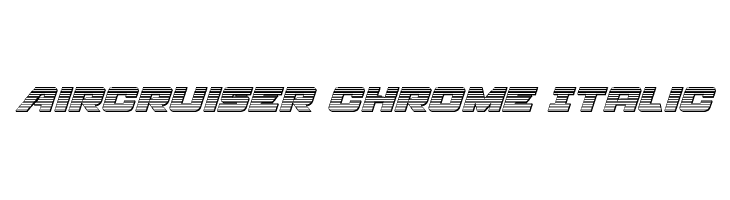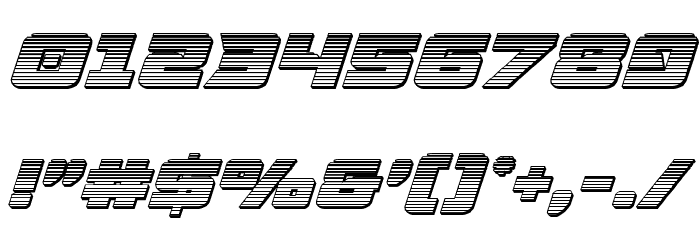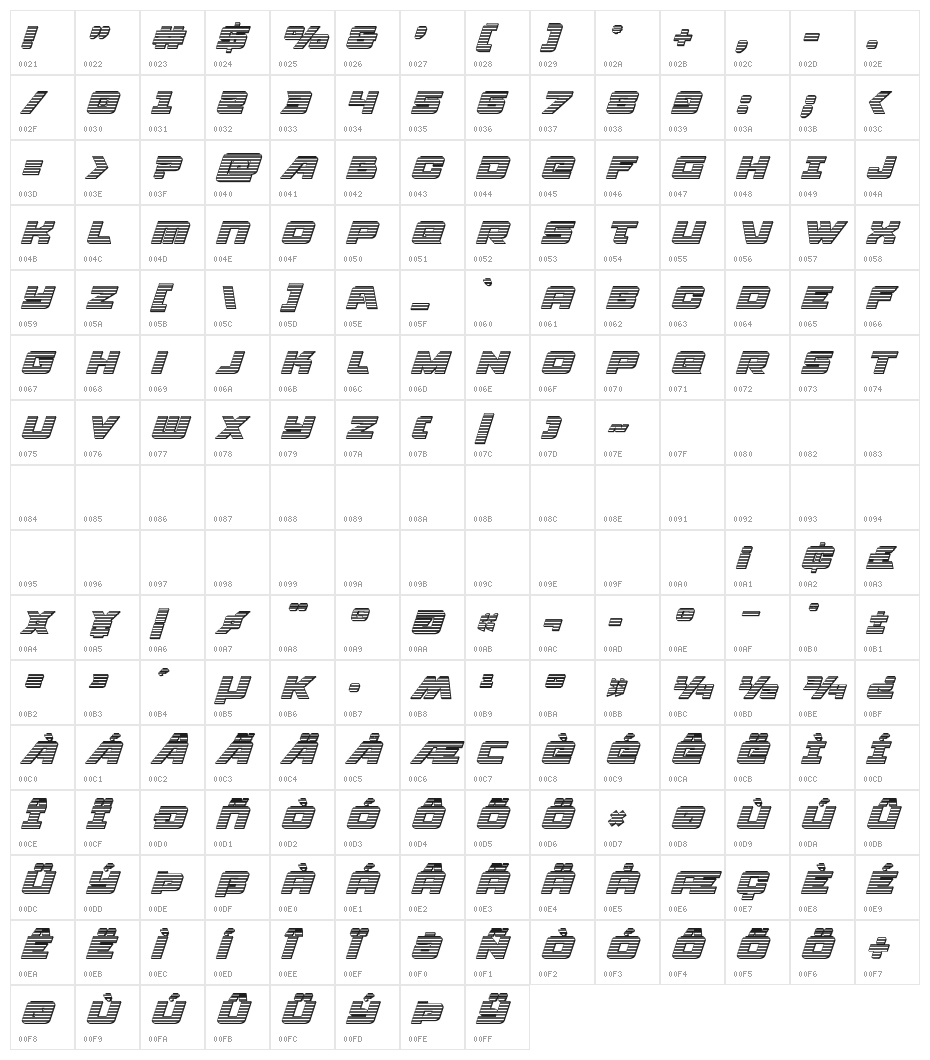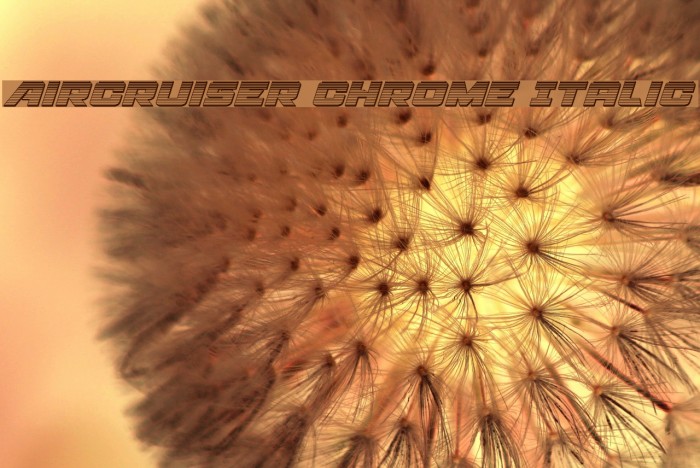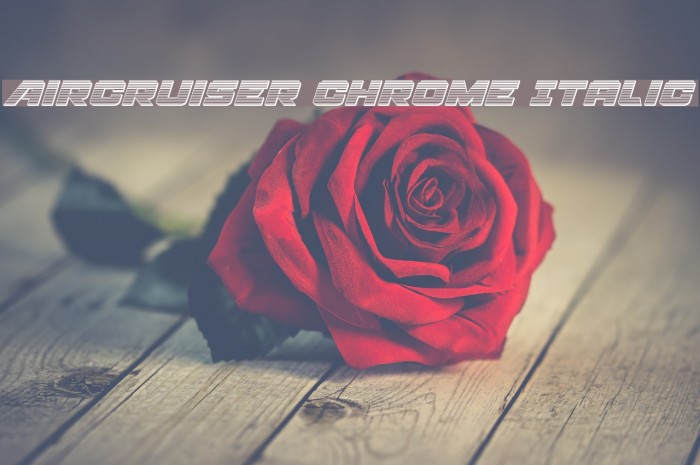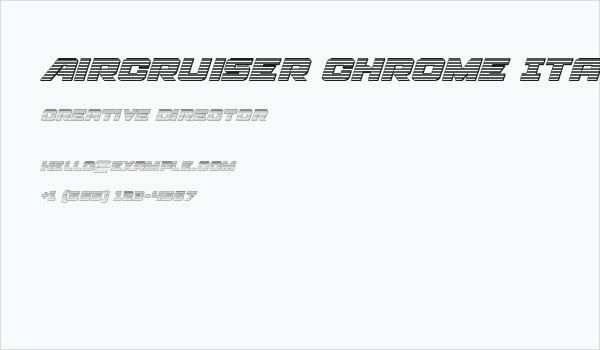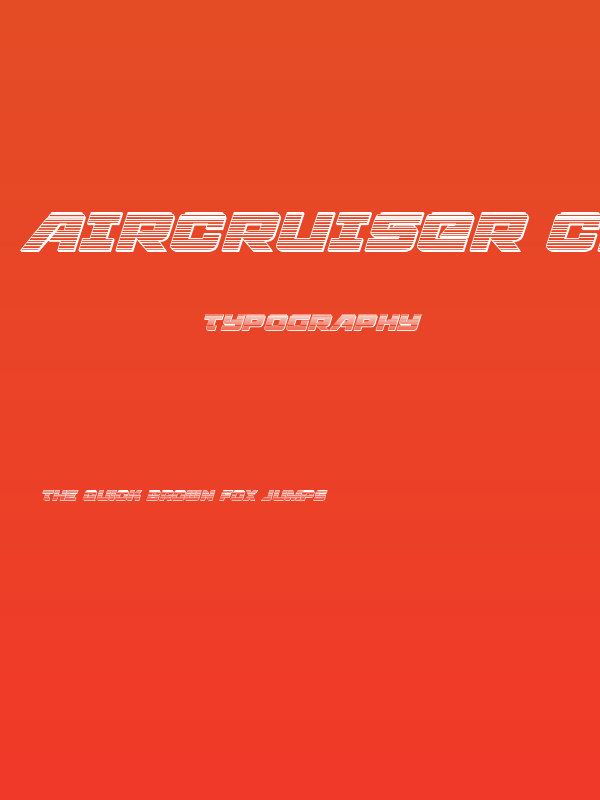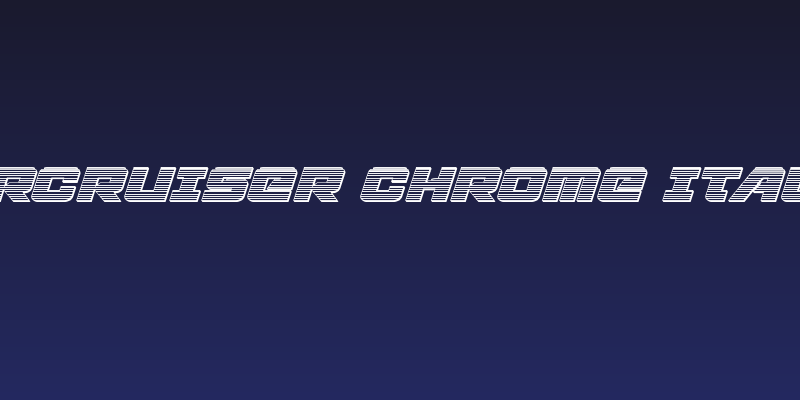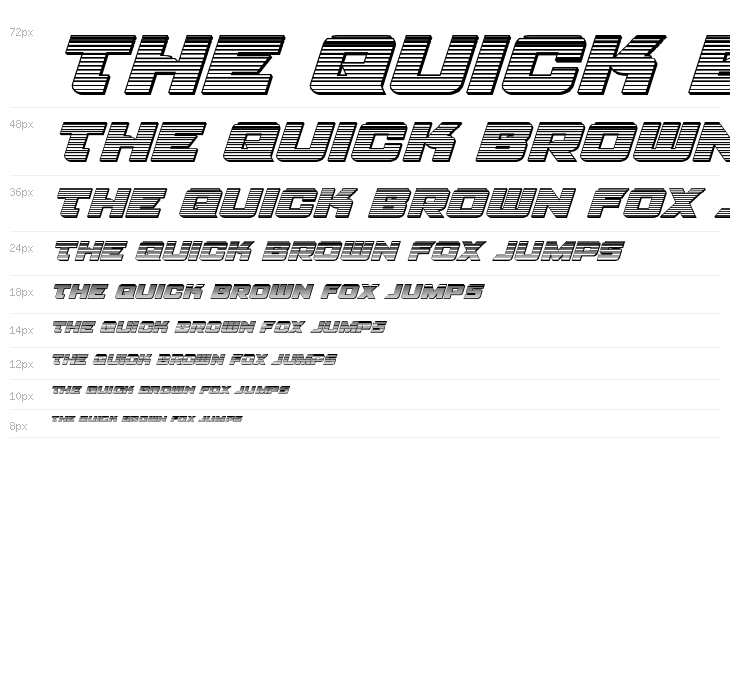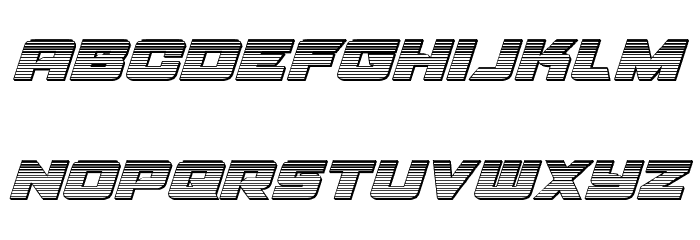
Aircruiser Chrome Italic Font
Aircruiser Chrome Italic Description
This font features a bold, italicized style with a futuristic and dynamic appearance. The characters are designed with a chrome-like effect, incorporating horizontal lines that create a sense of movement and depth. The uppercase and lowercase letters maintain a consistent width, giving the font a uniform look. The numerals and special characters follow the same design principles, ensuring a cohesive appearance across all glyphs. This font's unique style makes it stand out, ideal for projects that require a modern and edgy aesthetic.
| Proposed Projects | Ideal for sci-fi themed designs, video game titles, automotive branding, and tech-related logos. |